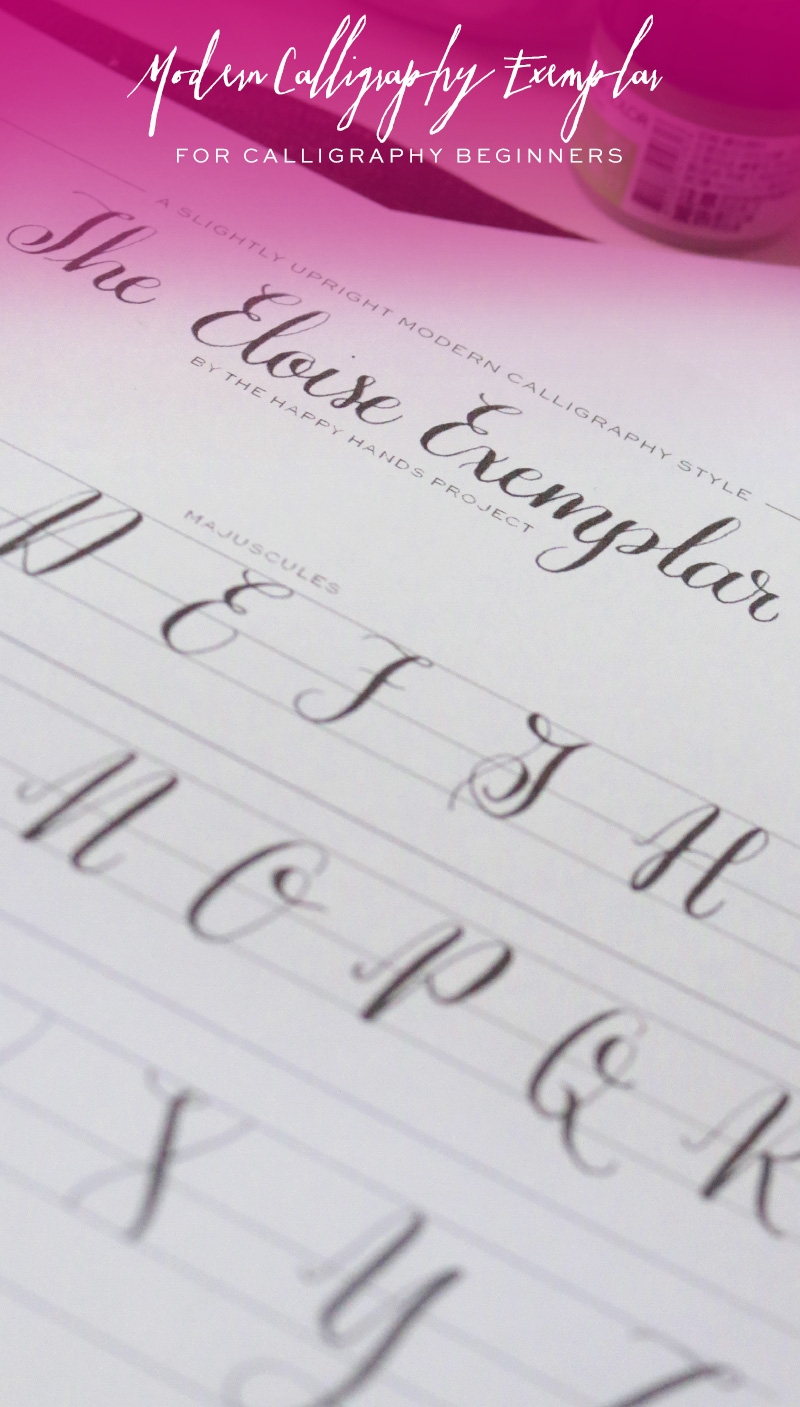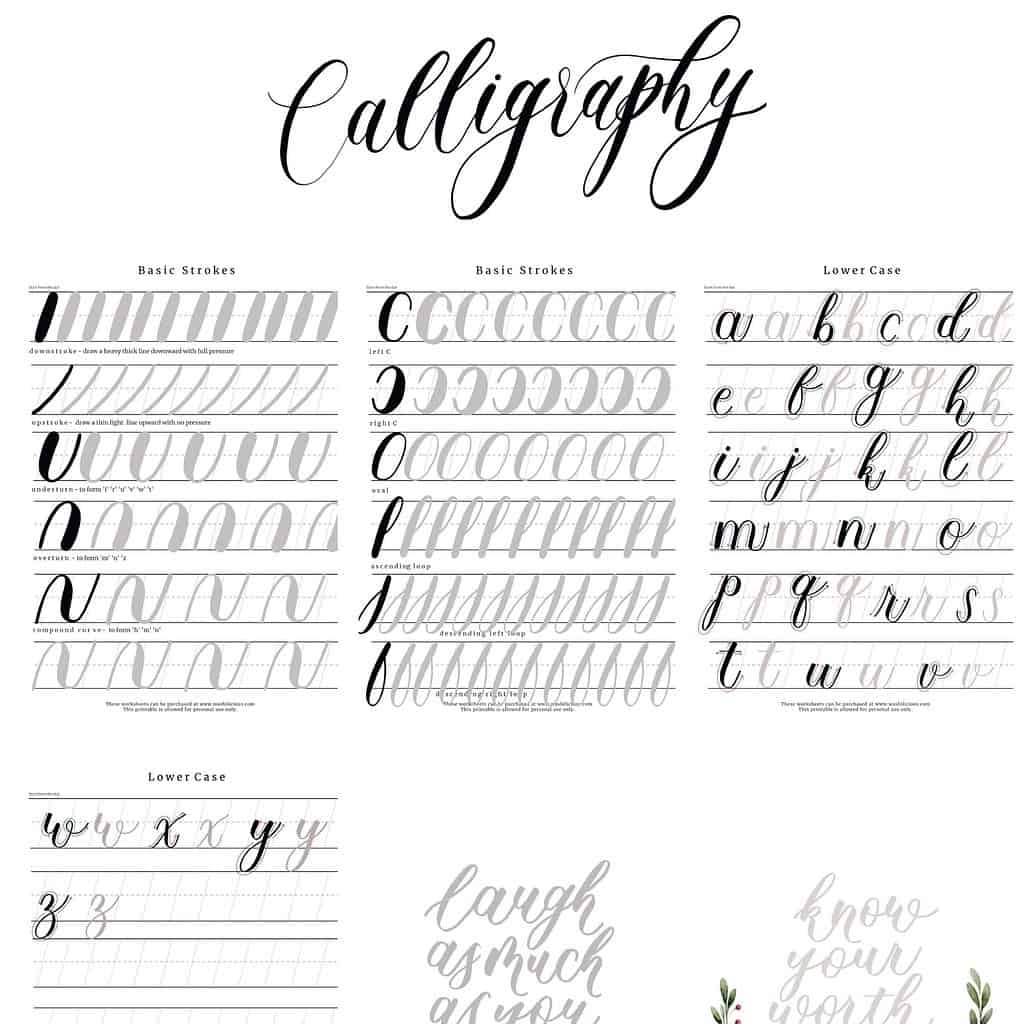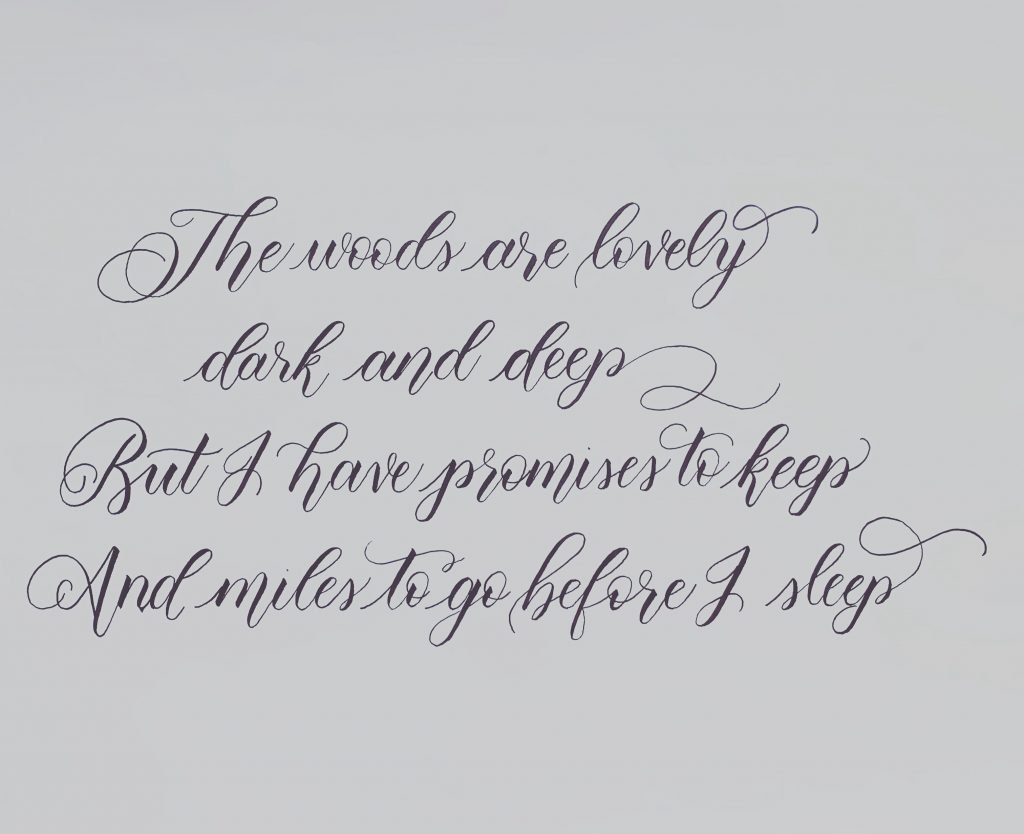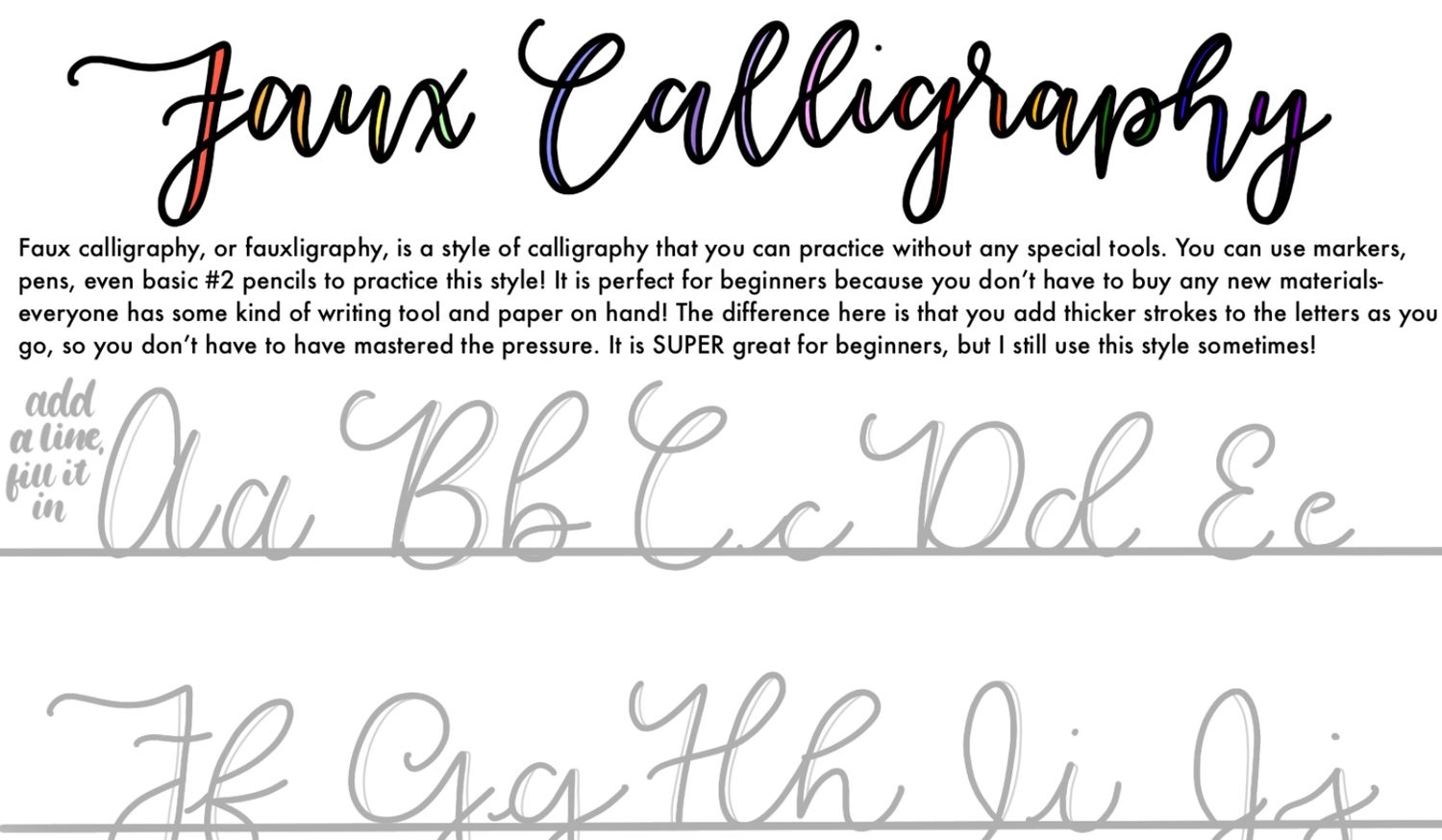
Looking to add a touch of elegance to your projects? Free printable calligraphy fonts are the perfect solution! With their graceful lines and artistic flair, calligraphy fonts can instantly elevate any design.
Whether you’re working on a wedding invitation, a personalized gift, or simply want to jazz up your Instagram feed, calligraphy fonts bring a sense of sophistication and style. And the best part? You can download them for free!
There are countless websites where you can find a wide variety of free printable calligraphy fonts. From classic scripts to modern styles, there’s something for every taste and project. Simply download the font of your choice and start creating!
Experiment with different sizes, colors, and textures to see what works best for your design. Whether you’re a seasoned pro or just starting out, calligraphy fonts are a fun and versatile way to add a special touch to your work.
So why wait? Dive into the world of free printable calligraphy fonts and unleash your creativity! With endless possibilities at your fingertips, you’ll be amazed at how these beautiful fonts can transform your projects. Happy creating!
Don’t miss out on the opportunity to elevate your designs with free printable calligraphy fonts. Download your favorites today and let your creativity soar! With these elegant and stylish fonts, you’ll be sure to impress everyone with your stunning creations.